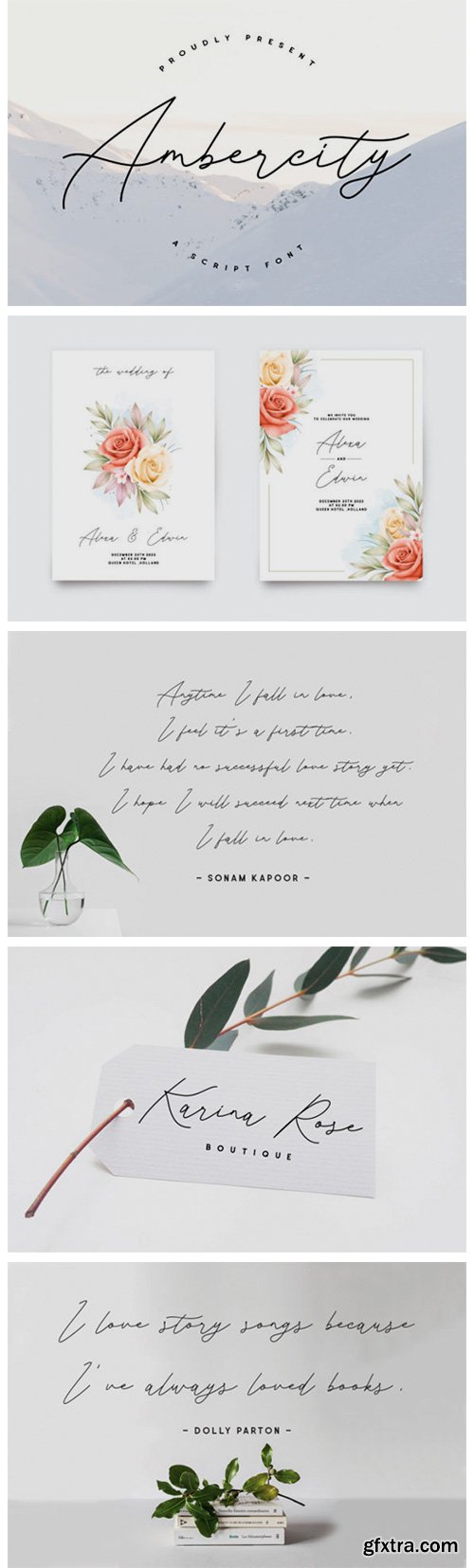
Ambercity Font
Ambercity is an elegant and classic script with a handwritten style. Whether it’s for web, print, moving images or anything else – this font will look spectacular.